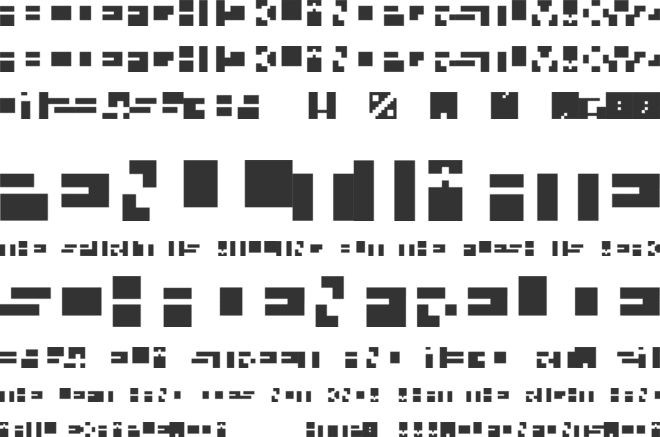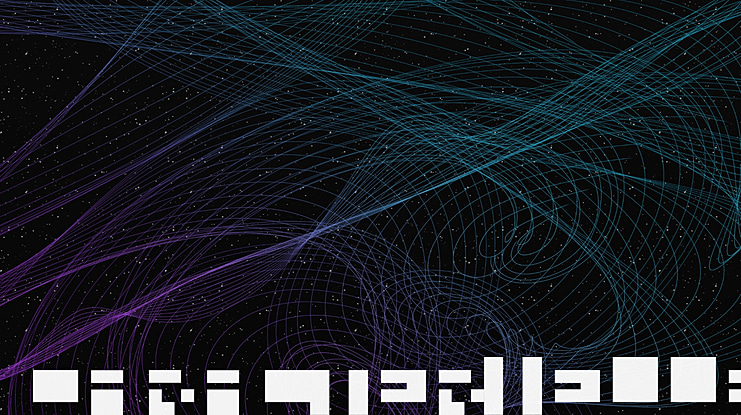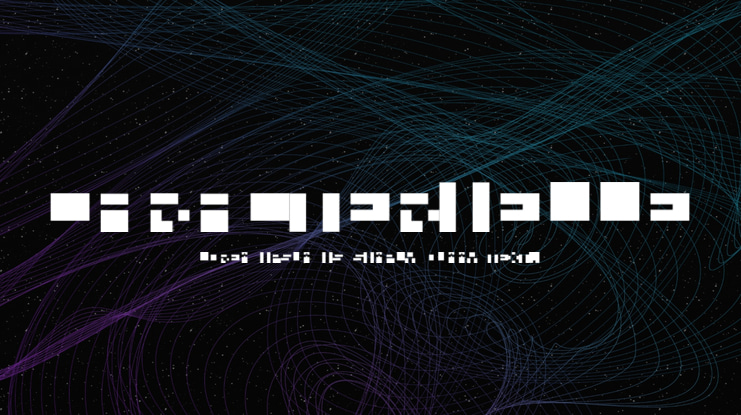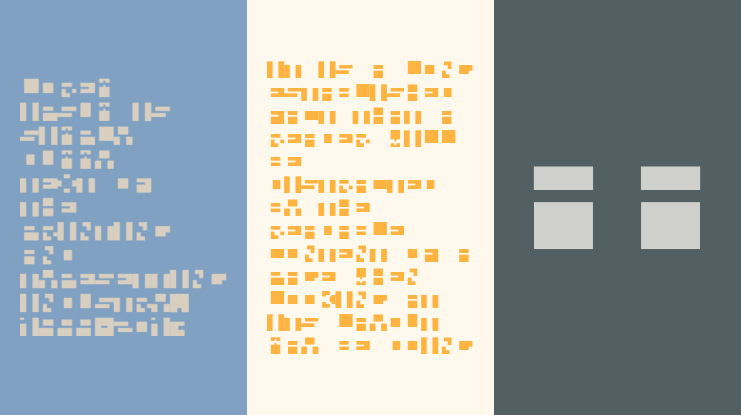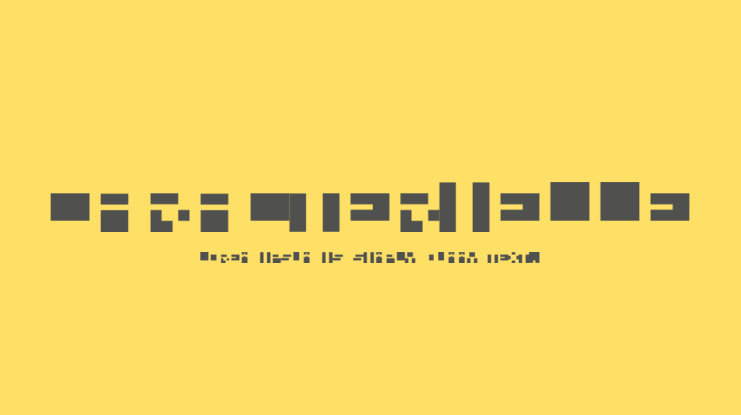
Caracterielle Font
On the picture you can see the presentation poster and the typographic kit. The font is typographic forms which you can read between the ligns or just play for graphic and abstract background!